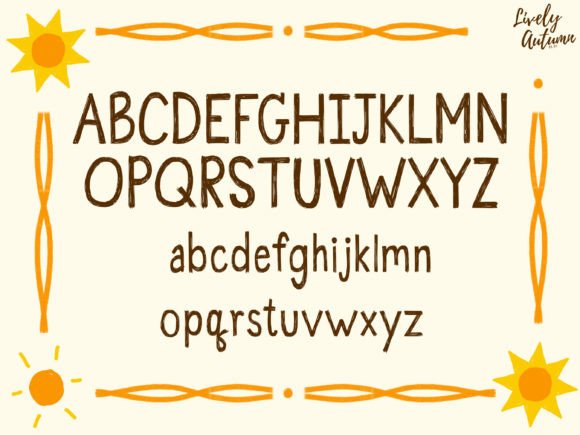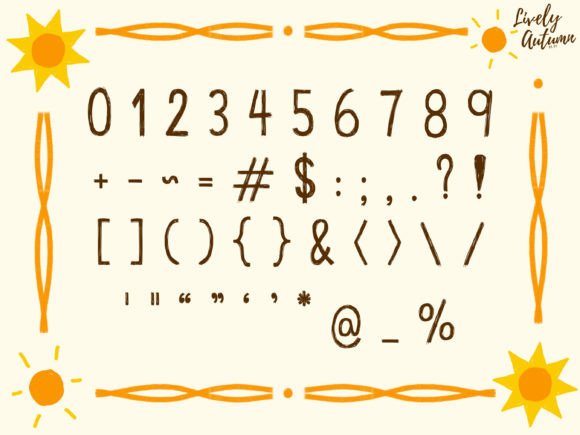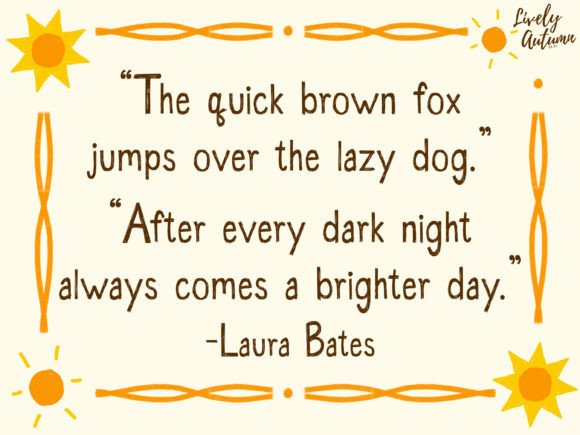
Discover the Perfect Font for Your Next Creative Project
Have you ever been stuck staring at a blank page, waiting for inspiration to strike? You know, that moment when the cursor blinks impatiently, and your brain freezes up? For many creatives, this is a familiar feeling. But what if I told you that the right font could be the spark that sets your imagination ablaze?
Meet Bright Breeze Font, a charming sans-serif handwritten typeface that’s perfect for personal projects and a variety of uses. Whether you’re designing invitations, posters, social media graphics, or journals, Bright Breeze Font adds a touch of warmth and personality to your work. As a designer, you know how valuable it is to have a versatile font that can adapt to different styles and themes. Bright Breeze Font is that font, offering a rough, casual style that’s sure to captivate your audience.
Bright Breeze Font Key Features
- Font Family: Bright Breeze Font
- Unique Characteristic: Unique blend of modern and vintage elements, creating a distinctive aesthetic
- Font Style: Available in Regular, Italic, Bold, and Bold Italic styles
Bright Breeze Font Review
Overall, I think Bright Breeze Font is a beautiful, airy typeface that’s perfect for spring-inspired designs, especially those that require a carefree and uplifting feel. ✨ Its flowing lines and rounded edges evoke a sense of movement, making it an ideal choice for promotional materials, social media graphics, and even branding.
Some of the things that work well in Bright Breeze Font include:
- Its unique, handwritten feel that adds a touch of personality to designs.
- Its large x-height, making it highly legible, even at smaller font sizes.
- Its wide range of font weights and styles, offering plenty of flexibility for designers.
- ⚠️ Bright Breeze Font may not be the best choice for formal or professional designs, as its informal feel may not be suitable for corporate branding or government communications.
- ⚠️ The font may be too playful for some audiences, potentially distracting or overwhelming viewers.
- ⚠️ The font’s rounded edges and flowing lines may not be suitable for designs that require sharp, precise typography.
In conclusion, Bright Breeze Font is a lovely, modern typeface that’s perfect for designs that need a touch of whimsy and playfulness. While it may not be suitable for all projects, it’s an excellent choice for designers looking to add some visual interest and personality to their work.
The Bright Breeze Font is ideal for:
- Creating eye-catching social media graphics and ads.
- Designing modern and sleek presentations and reports.
- Adding a touch of elegance to business cards and letterheads.
Alternatives to Bright Breeze Font
Lato is a modern sans-serif font that is highly legible and versatile. It is suitable for both body text and headings. Use Lato when you need a clean and minimalist look for your design. Compared to Bright Breeze Font, Lato is more condensed and has a slightly more geometric feel.
Open Sans is another popular sans-serif font that is highly legible and suitable for body text and headings. It has a friendly and approachable feel, making it suitable for a wide range of designs. Compared to Bright Breeze Font, Open Sans has a more rounded feel and is more suitable for modern and clean designs.
Montserrat is a sans-serif font that is inspired by the urban environment of the city of Montserrat in Argentina. It has a strong and geometric feel, making it suitable for headlines and titles. Use Montserrat when you need a bold and modern look for your design. Compared to Bright Breeze Font, Montserrat has a more angular feel and is more suitable for urban and modern designs.
Q: What is the recommended font size for using Bright Breeze Font?
The recommended font size for Bright Breeze Font is between 12pt and 24pt. This allows for clear readability and optimal legibility. However, you can experiment with different font sizes to achieve the desired effect for your design project.